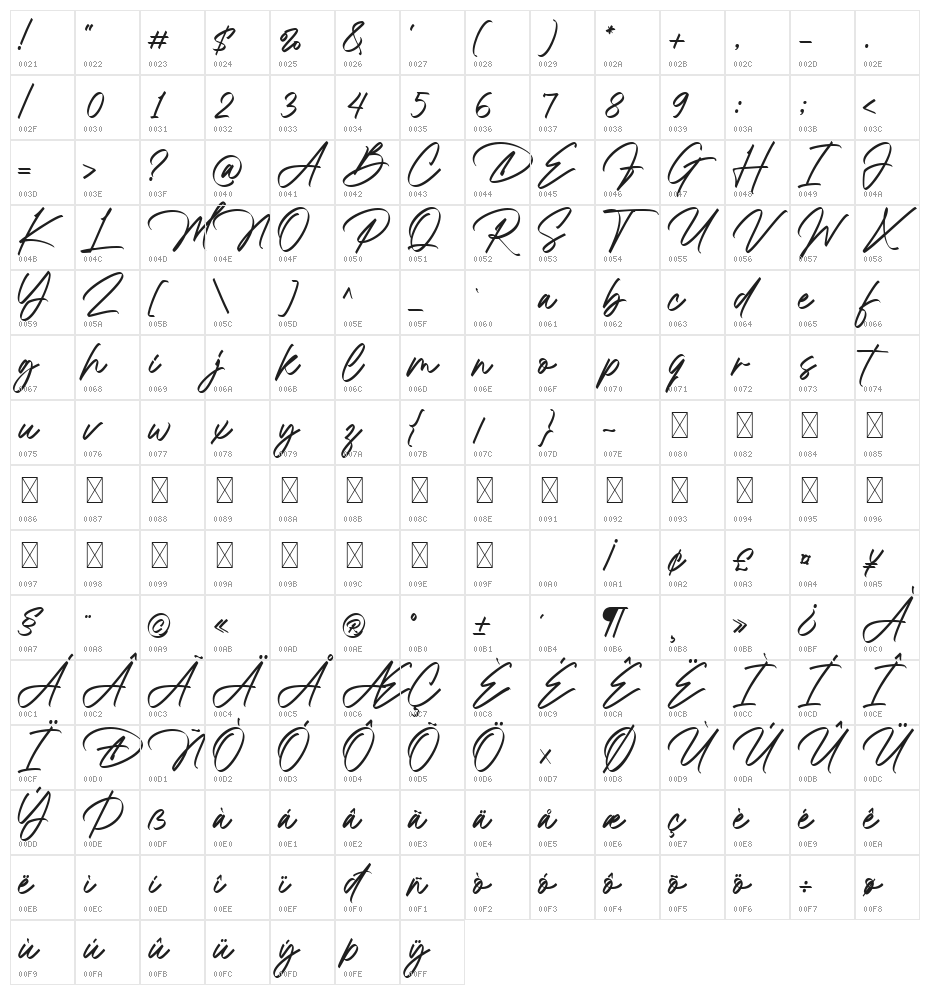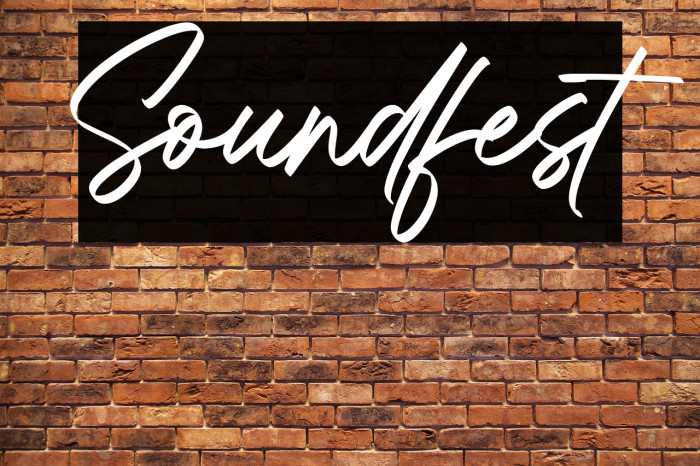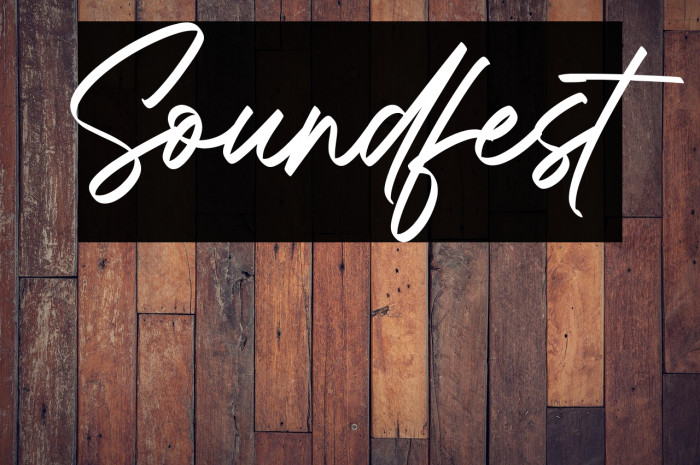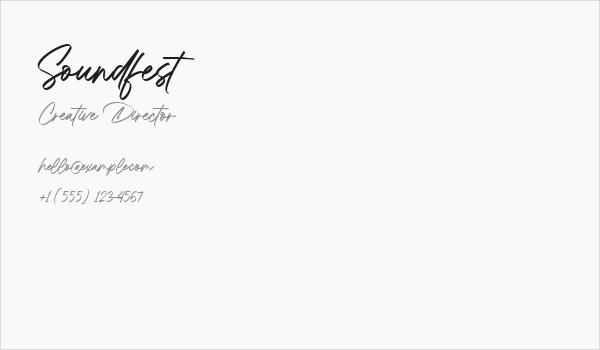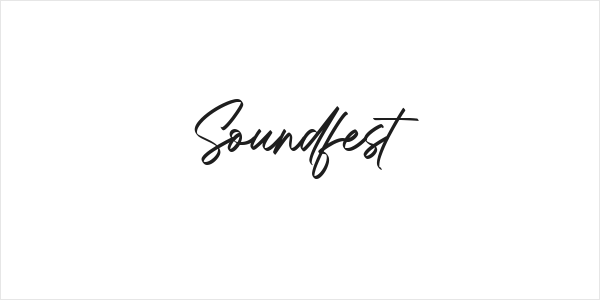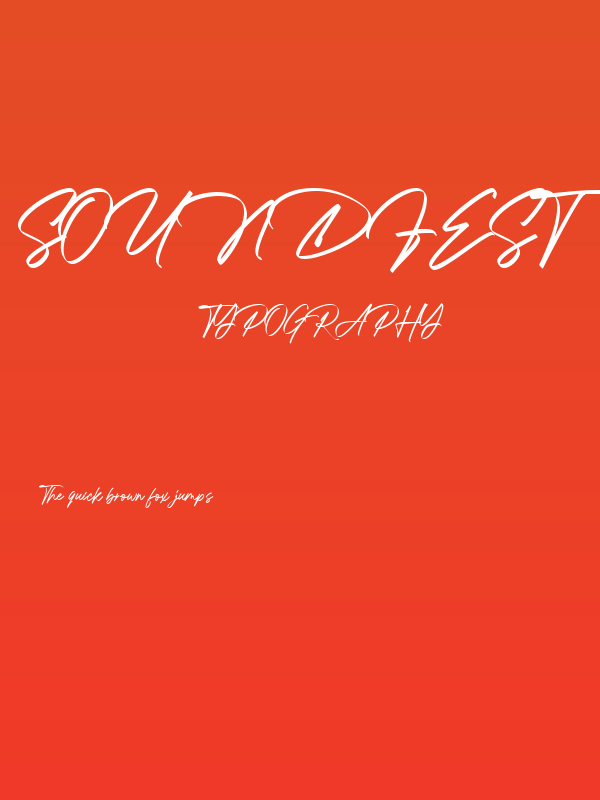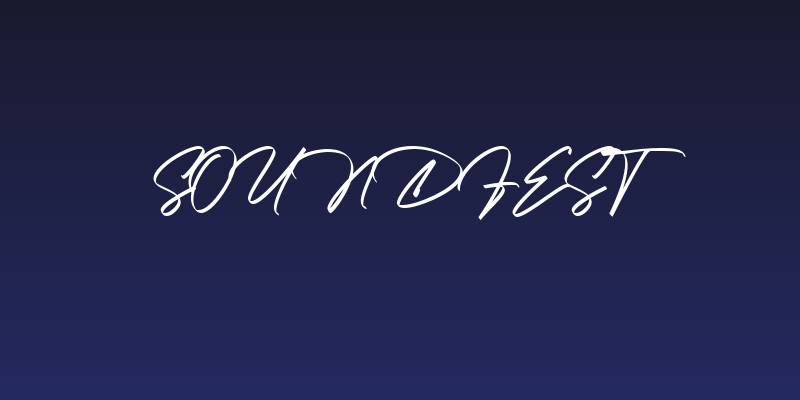
Soundfest Font
Soundfest Description
A dynamic and expressive script font with a handwritten style, featuring fluid strokes and a casual appearance.
| Overall Style | Casual, Artistic |
| Proposed Projects | Invitations, greeting cards, personal branding. |